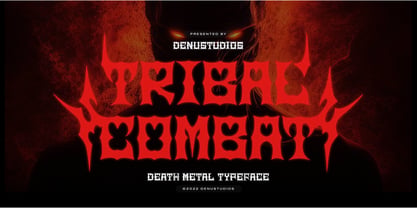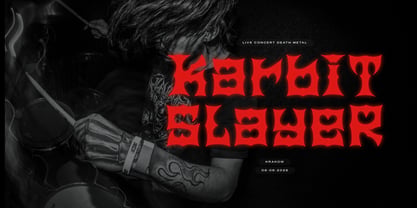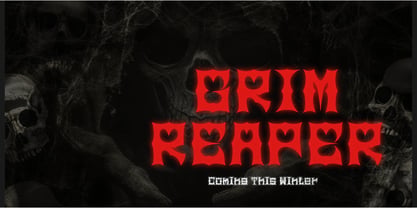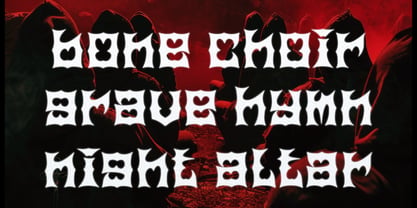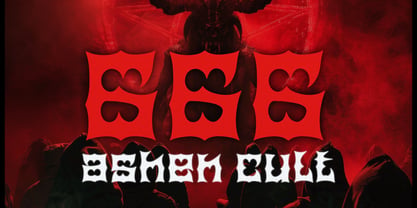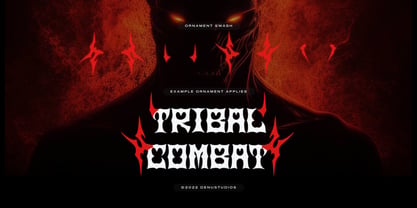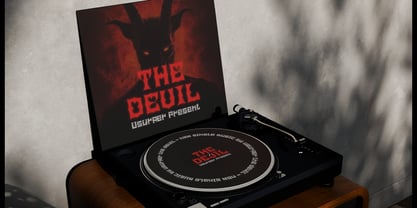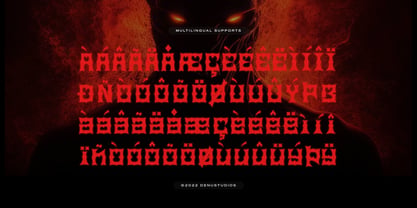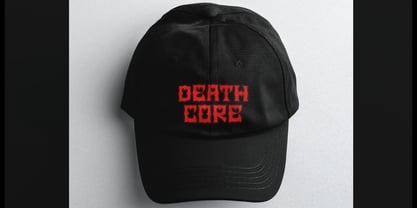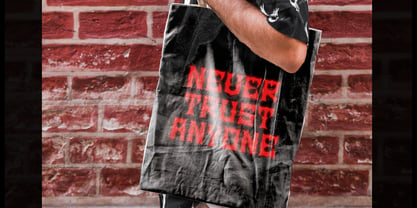
Tribal Combat
The Tribal Combat Font Family was designed by Dede Nugraha and published by Denustudio. Tribal Combat contains 1 styles. More about this family
Tribal Combat | Death Metal Typeface, from Denustudios, suitable for any projects such as: logos, branding projects, homeware designs, product packaging, mugs, quotes, posters, shopping bags, t-shirts, book covers, name card, invitation cards, greeting cards, label, photography, watermark, special events, and all your other lovely projects that need Death Metal a taste.